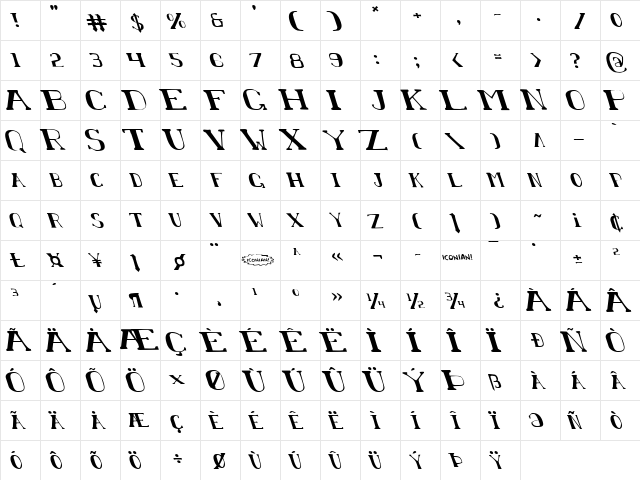
Chardin Doihle Leftalic Italic
Design Context for Chardin Doihle Leftalic Typeface
Chardin Doihle Leftalic takes a measured approach to typography — its balanced proportions and neutral character make it a reliable workhorse for both digital and print work. The slanted form adds forward momentum and visual energy.
Pro Tip: Try Chardin Doihle Leftalic for annotation and caption copy alongside an upright companion — the contrast in angle creates a dynamic but ordered typographic system.